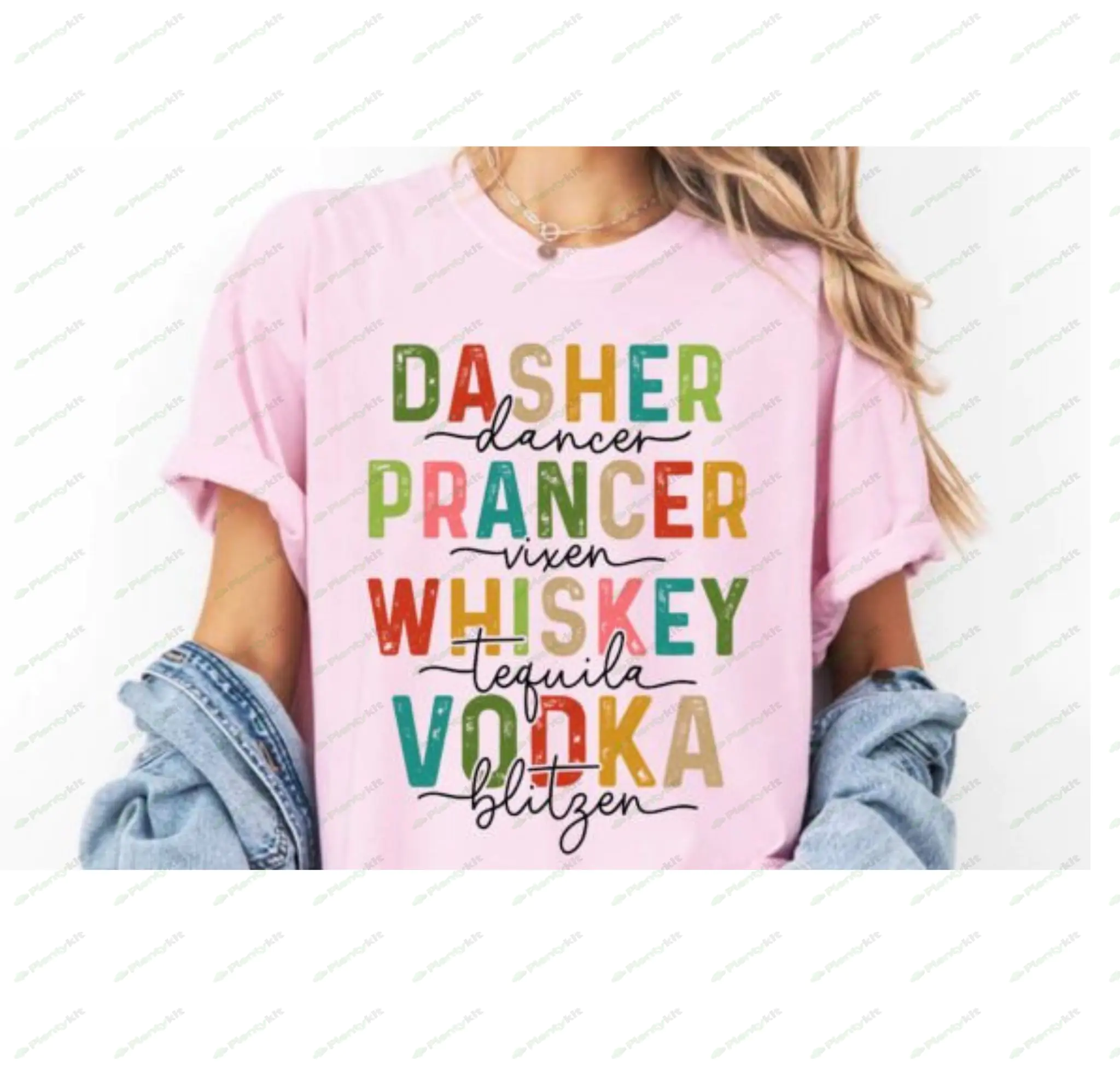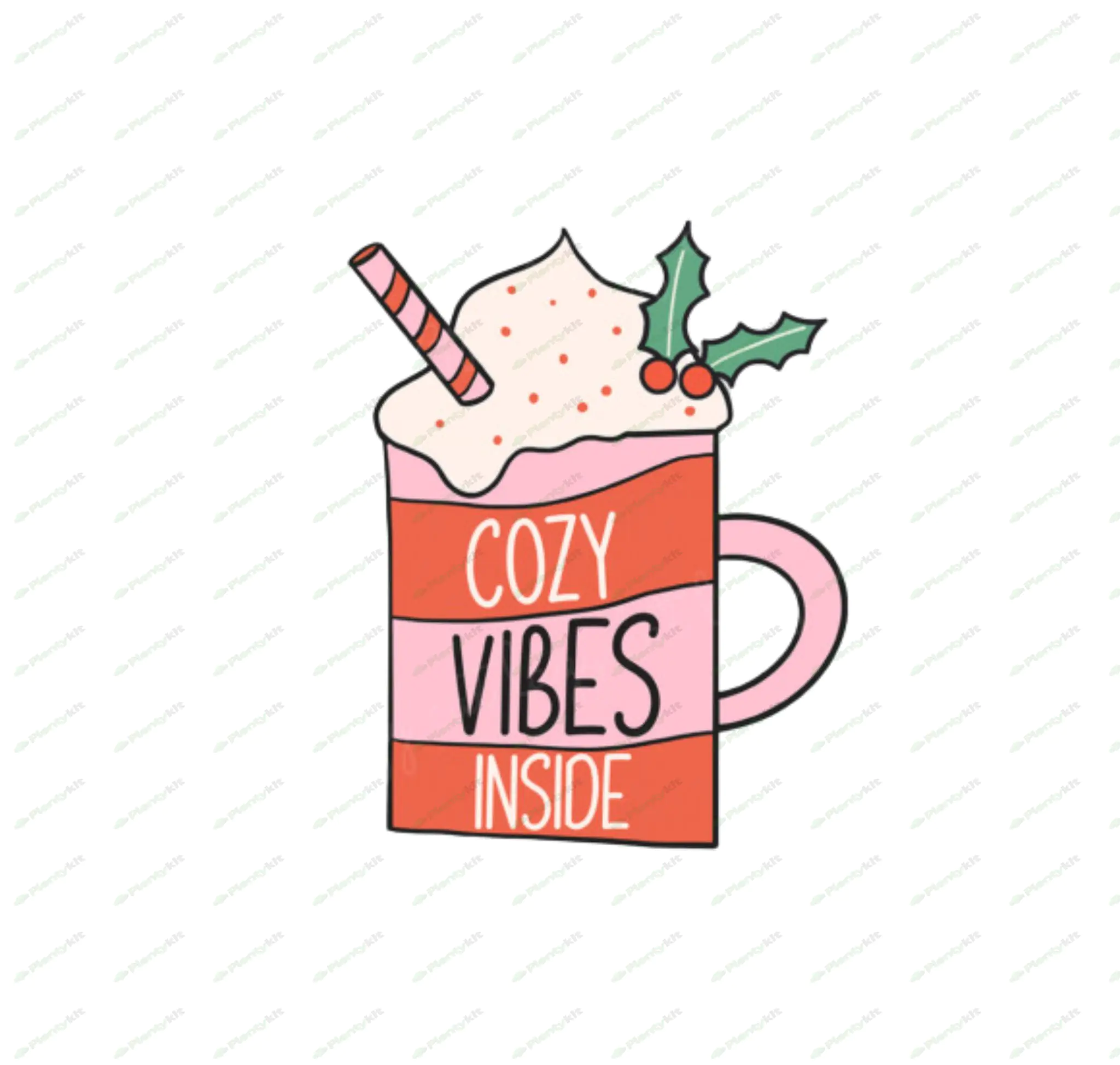
Handlettered Font Bundle - Planner Fonts - Farmhouse Font - Calligraphy Font - Cursive Font - Cricut
Introducing the Spring Handwritten Bundles Font Set—a collection of modern and elegant typefaces perfect for a variety of creative projects. This versatile bundle offers a range of handwritten fonts designed to bring a touch of charm and personality to your designs. Whether you’re creating posters, invitations, headers, titles, greeting cards, or lettering, this bundle has you covered. Elevate your designs with the contemporary charm of these fonts, turning each piece into a visually engaging and creatively crafted expression. Transform your projects into a celebration of springtime beauty and modern design with the Spring Handwritten Bundles Font Set.